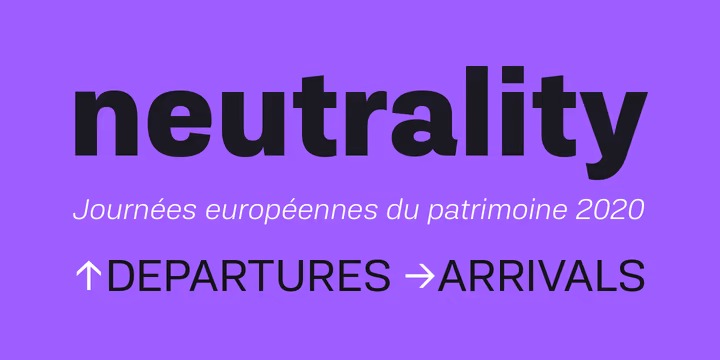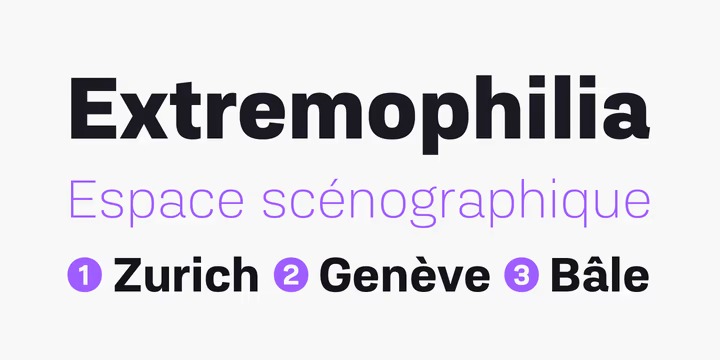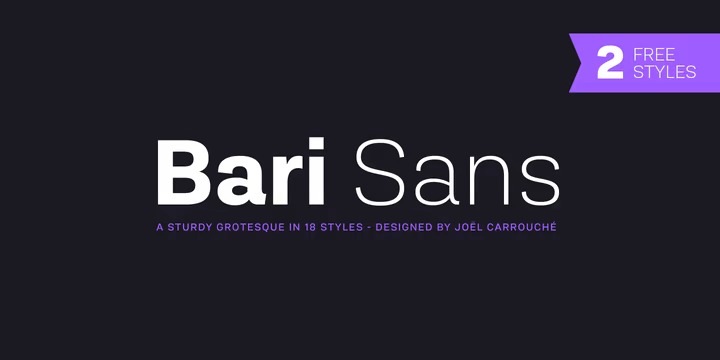
Bari Sans Font
This font is a sans-serif based on simple geographic shapes. It has friendly demeanor with rounded edges and curved ears & spurs, but also more subtle details like the angled terminals, the double storey g and the distinctive shape of the lowercase a. Designed to look robust and masculine, this family is also quite versatile with its 9 weights, ranging from thin to black, plus matching italics.